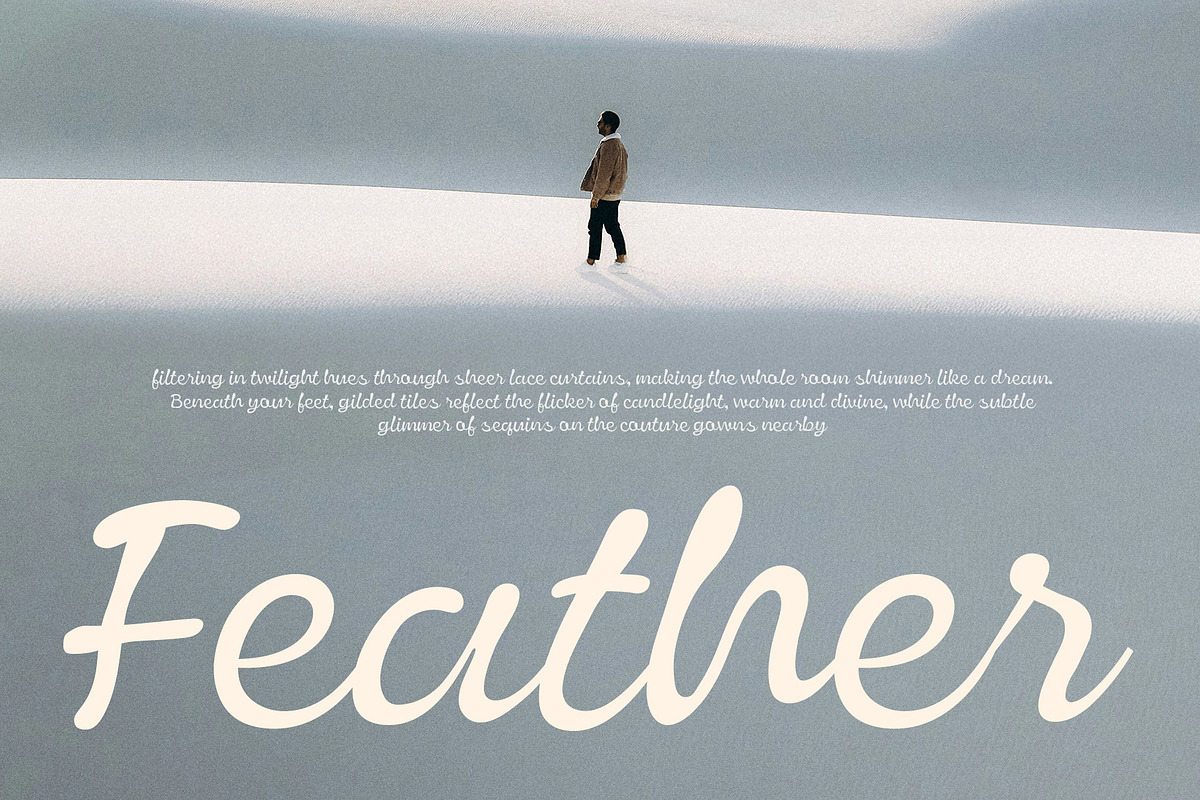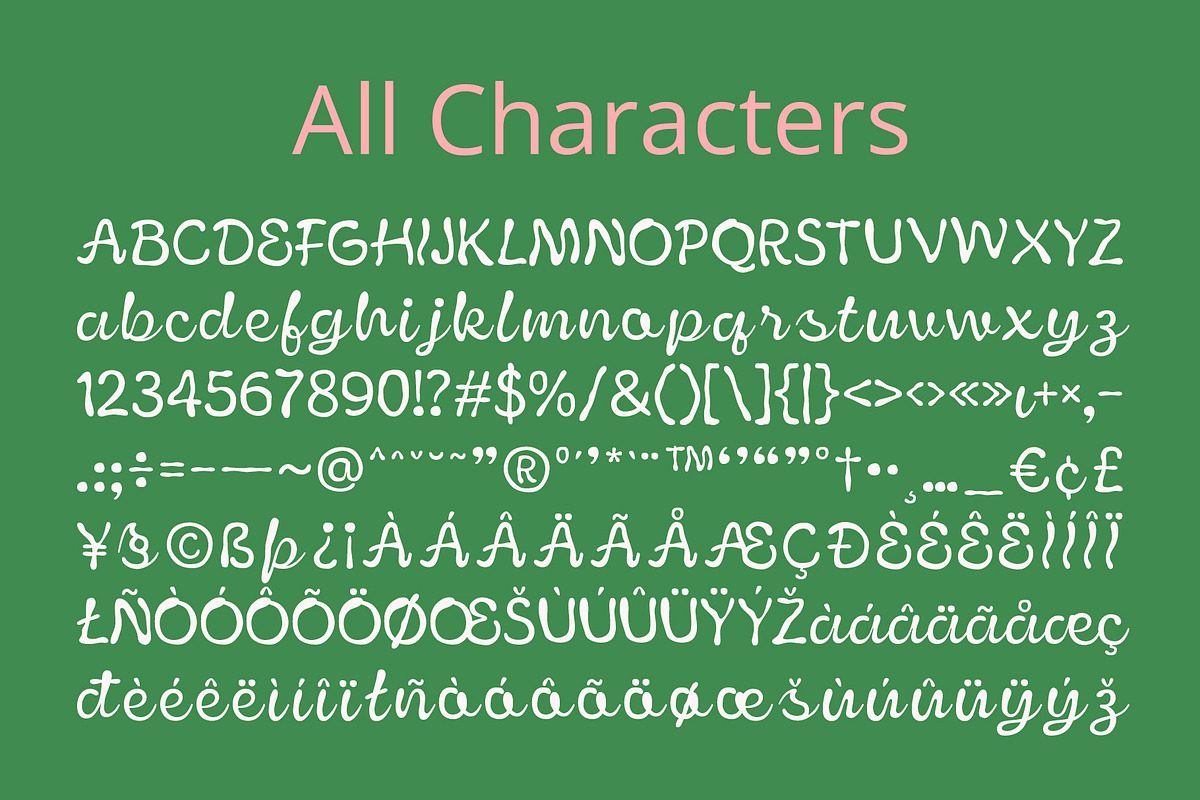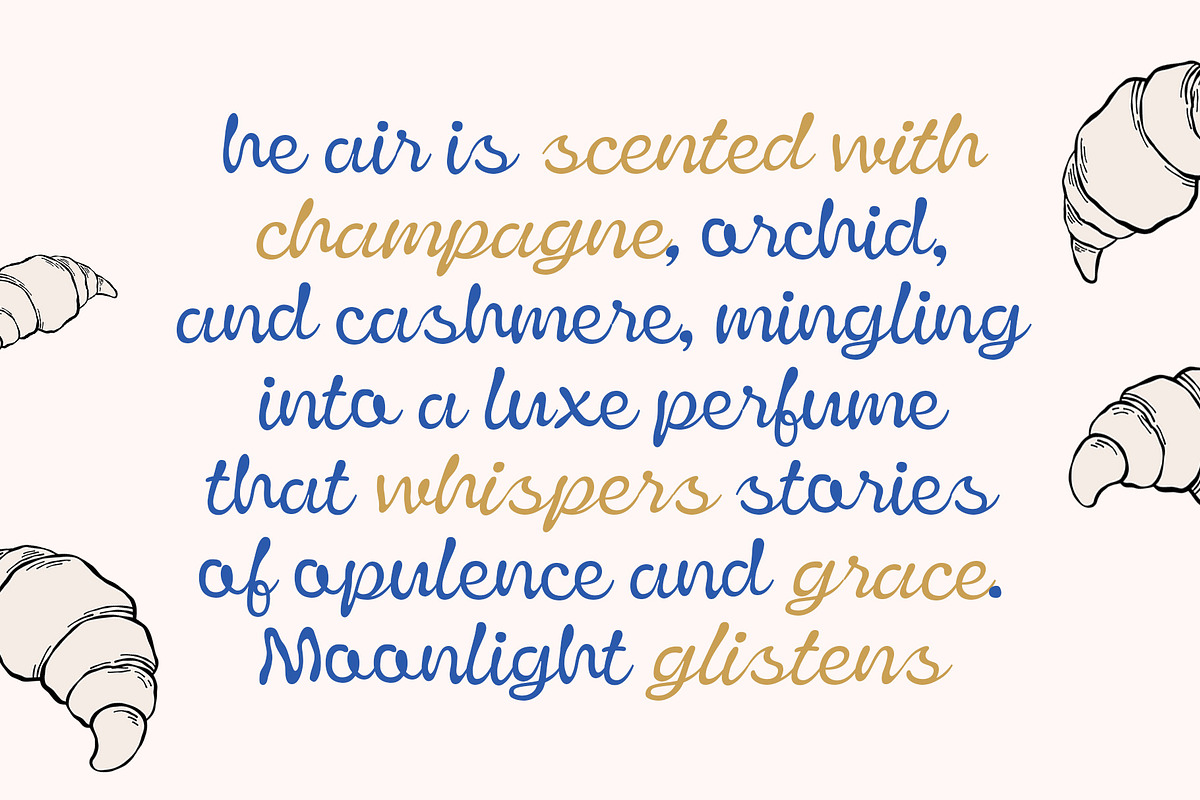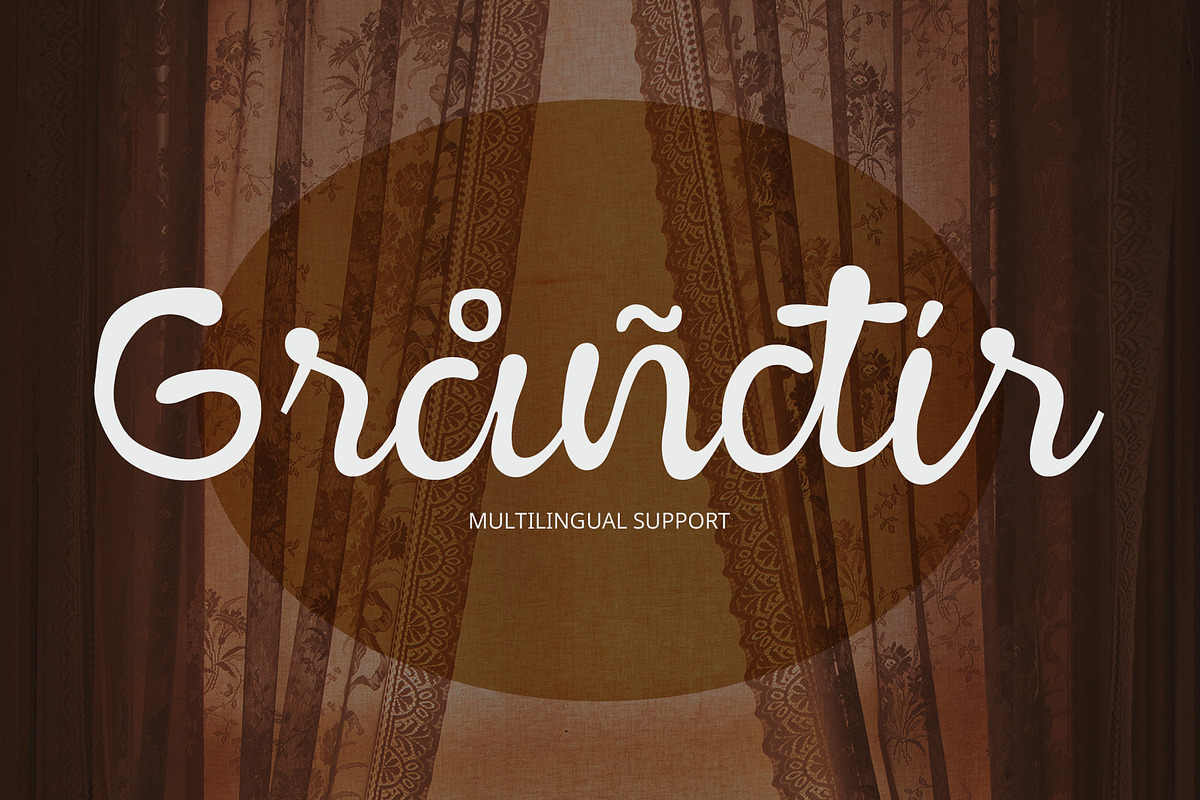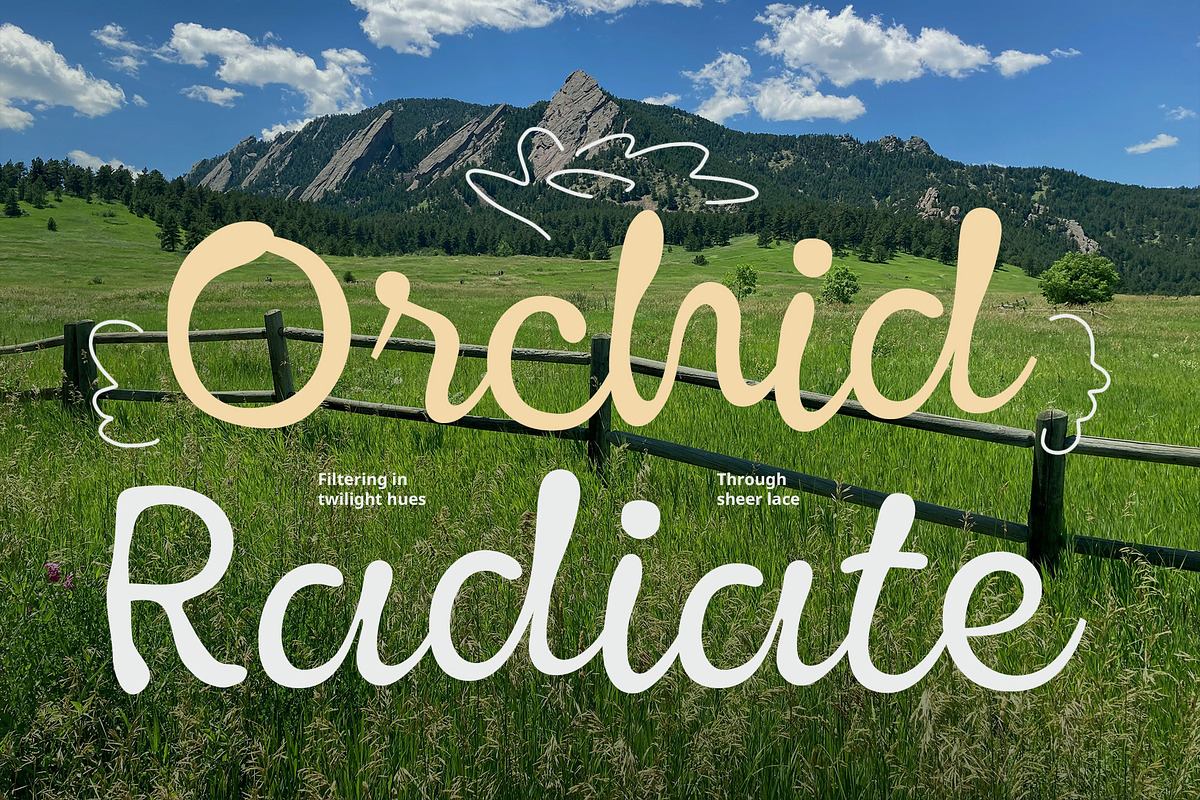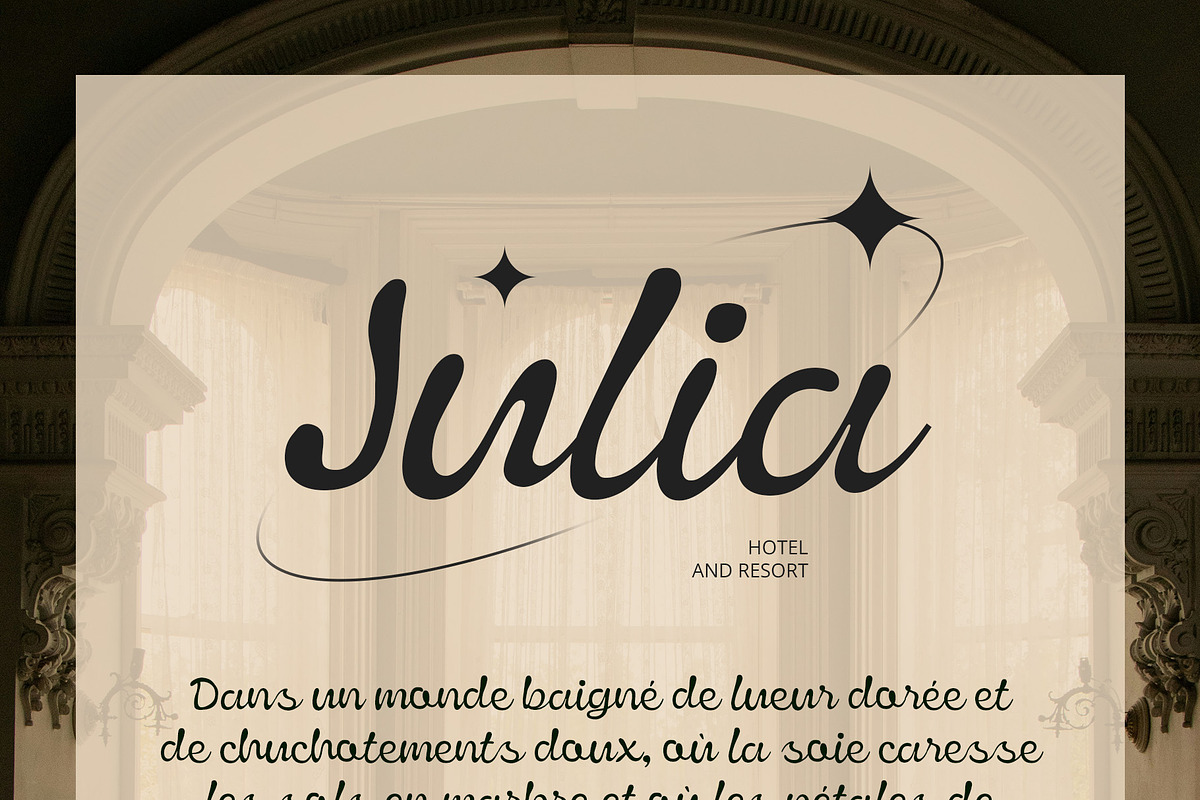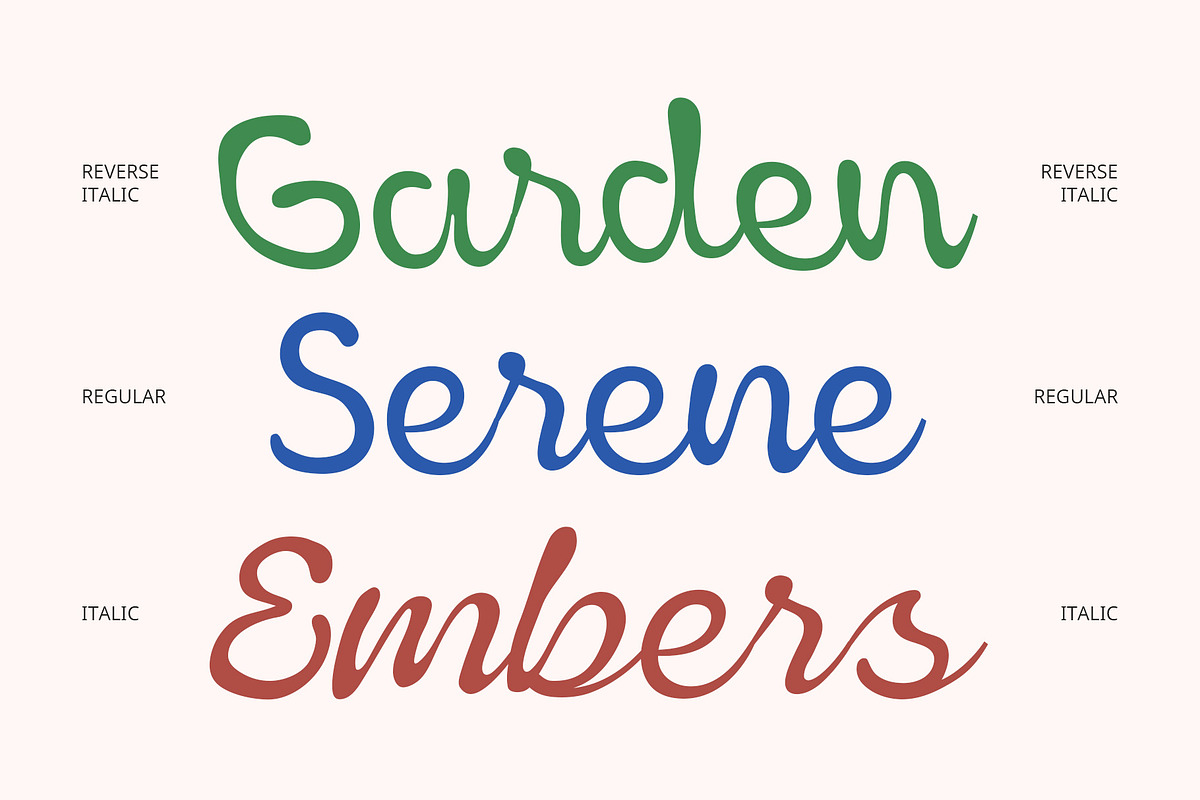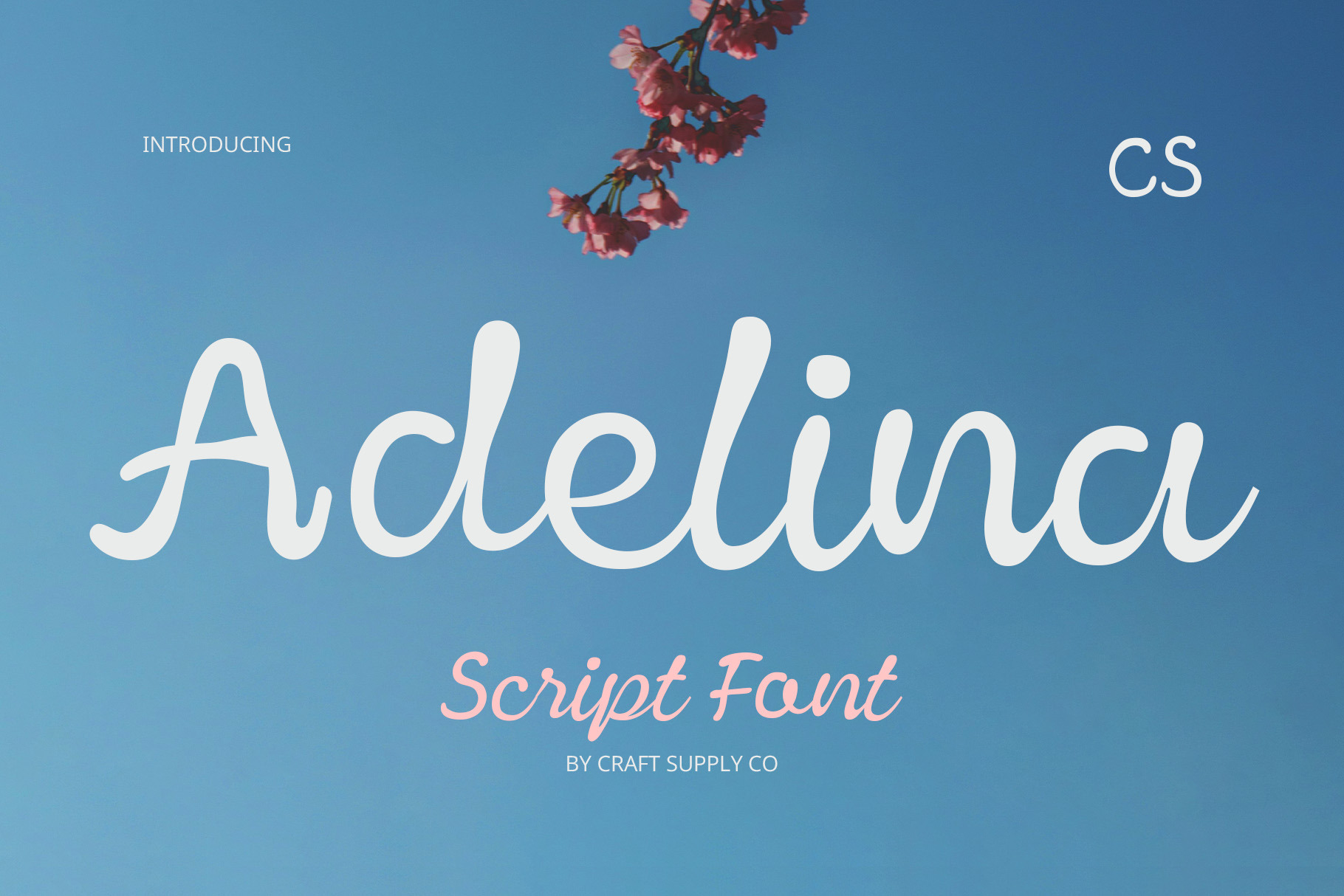
CS Adelina – Script Font
CS Adelina Font – A Graceful Script with Modern Elegance
Stylish, Feminine, and Beautifully Balanced CS Adelina is a modern script font that radiates elegance, sophistication, and charm through its smooth, flowing strokes. Designed with clean curves and balanced proportions, it offers a refined visual rhythm that feels both effortless and intentional, making it ideal for high-end design applications.
A Contemporary Take on Calligraphic Style While rooted in classic script aesthetics, CS Adelina introduces a minimalist and contemporary touch. Each letter is carefully crafted to appear light, graceful, and cohesive, resulting in a polished yet expressive look. It strikes the perfect balance between femininity and professionalism, appealing to modern creative sensibilities.
Perfect for Elegant & Stylish Visuals From wedding invitations and beauty branding to social media graphics and upscale packaging, CS Adelina elevates any design with a touch of romantic sophistication. Its flowing nature brings a human warmth, while its clean execution ensures readability and visual impact.
Where Aesthetics Meet Versatility Whether you’re crafting a luxury logo, signature-style heading, or editorial design, CS Adelina adapts beautifully to projects that prioritize style, elegance, and emotional appeal. It’s the script font of choice for designers who want to convey grace, confidence, and visual allure with a modern edge.
- CS Adelina Regular
- CS Adelina Italic
- CS Adelina Reverse Italic